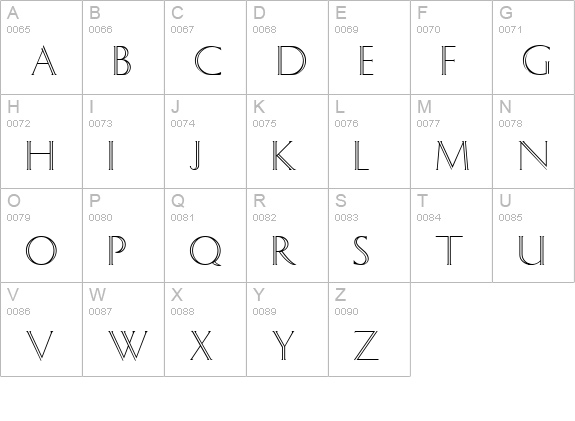
Socrates Regular Font Details
Socrates Regular is the standard, neutral variant in the Socrates typeface family \xE2\x80\x94 well suited to general body text, paragraphs, and standard typographic work.
Socrates Regular font is a versatile and elegant typeface that embodies timeless sophistication. With its clean lines and balanced proportions, this font is perfect for both print and digital designs. The Socrates Regular font boasts a classic yet contemporary style, making it suitable for a wide range of projects. Whether you're designing a logo, creating a website, or crafting a brochure, this font will effortlessly elevate your work to a new level of professionalism. One of the standout features of Socrates Regular font is its readability. The carefully crafted letterforms ensure that each character is easily distinguishable, making it a pleasure to read even in small sizes. This font also offers excellent legibility on various backgrounds, ensuring that your message is clear and impactful. But what truly sets Socrates Regular font apart is the fact that it is available for free download at FontsMarket.com. Yes, you heard it right – this high-quality font can be yours without spending a dime. FontsMarket.com offers a wide selection of free fonts, and Socrates Regular is one of the gems in their collection. Downloading Socrates Regular font is a breeze. Simply visit FontsMarket.com, search for Socrates Regular, and click on the download button. Within seconds, you'll have this exceptional font ready to use in your next project. So why wait? Take advantage of this incredible opportunity and enhance your designs with the timeless elegance of Socrates Regular font. Download it for free at FontsMarket.com and let your creativity shine.